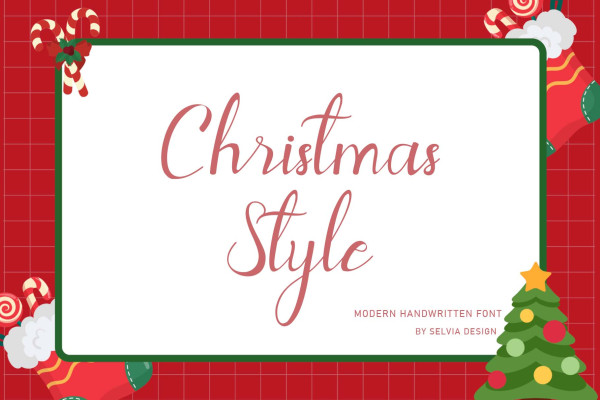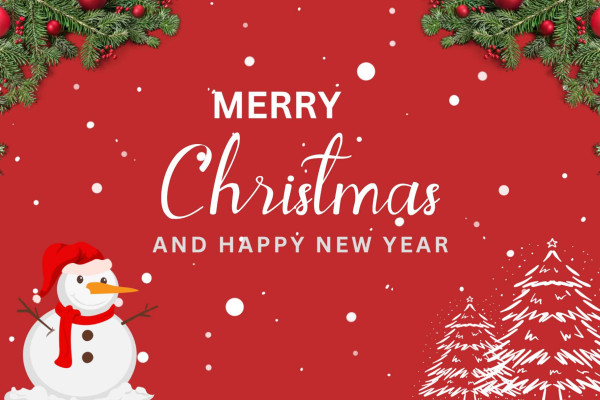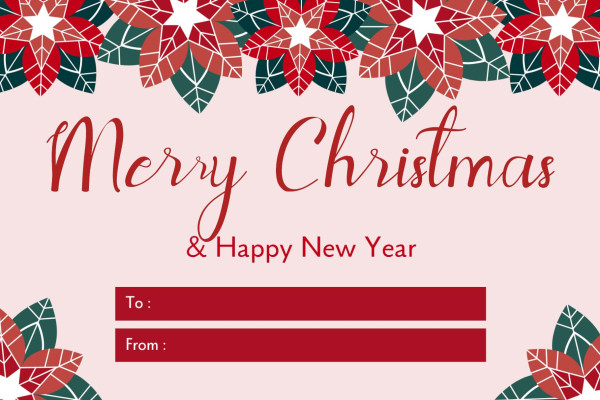
Christmas Style Typeface
Christmas Style Typeface is a festive and magical handwritten typeface with characters that dance along the baseline. It will add a luxury spark to any design project that you wish to create!